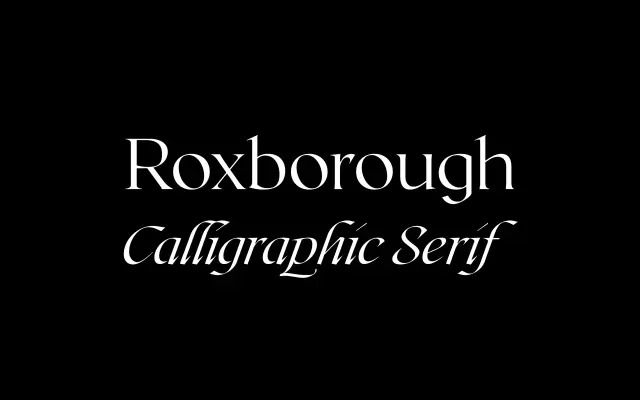
Roxborough CF
A high-contrast display serif with calligraphic roots and a signature single-storey 'a', aimed at branding, packaging and editorial work.
Eight weights with matching italics give Roxborough CF a wide range for display and identity applications. The design draws on calligraphy and hand lettering, with an open construction and stylised italics that depart noticeably from the upright. Latin and Cyrillic coverage extends to Vietnamese and a broad roster of European languages.
A high-contrast serif with calligraphic influences, a distinctive single-storey 'a', and expressive italics — oriented towards display, branding and packaging rather than extended text setting.